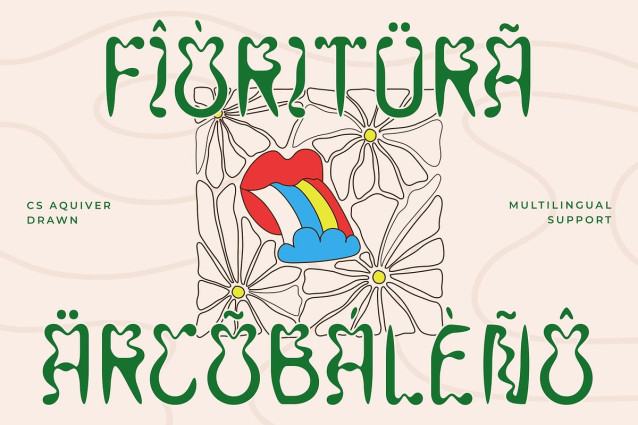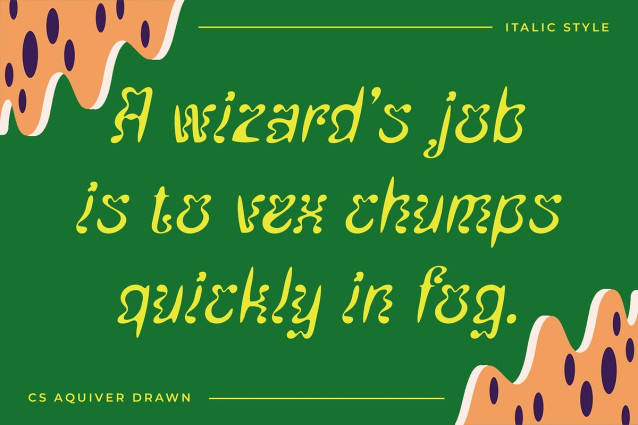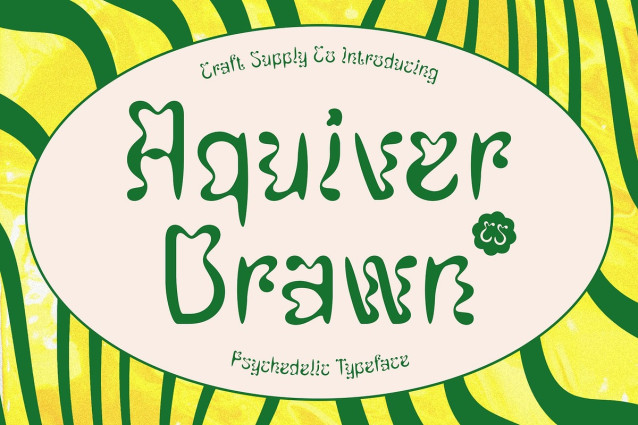
CS Aquiver Drawn Font
CS Aquiver Drawn Font – This is a display font that channels the essence of psychedelic design with bold, free-flowing curves and wild, unconventional letterforms. Its dynamic rhythm and fluid shapes create an immediate sense of movement and visual excitement—making it perfect for projects that want to feel spontaneous, funky, and alive.
Bold and Visually Energetic Vibe Every letter in this cheerful font carries a quirky, artistic flair. The font’s playful structure and exaggerated forms create a strong personality that stands out in creative spaces. Whether used in large display settings or layered into artistic visuals, it’s designed to provoke curiosity and set a tone that is fun, energetic, and slightly surreal.
Drawn Effect for Organic Texture The hand-drawn texture layered into the font enhances its raw, expressive quality. This rough edge gives each letter an organic, handcrafted appearance—bringing warmth and individuality to its psychedelic form. It’s this texture that adds depth, soul, and a sense of authentic artistry to every character.
Perfect for Bold and Creative Visual Themes This unique font is a go-to choice for music-themed visuals, experimental posters, bold branding, or alternative projects seeking a distinct, eye-catching identity. Whether you’re designing for a concert, zine, creative campaign, or avant-garde product, this font delivers an unforgettable impression that’s bold, eccentric, and full of expressive motion.